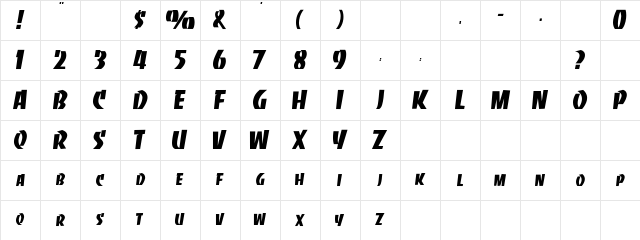
Delavan Regular
Delavan Family
Design Context for Delavan
Delavan is a composed and adaptable typeface that performs quietly and consistently across a wide range of design contexts.